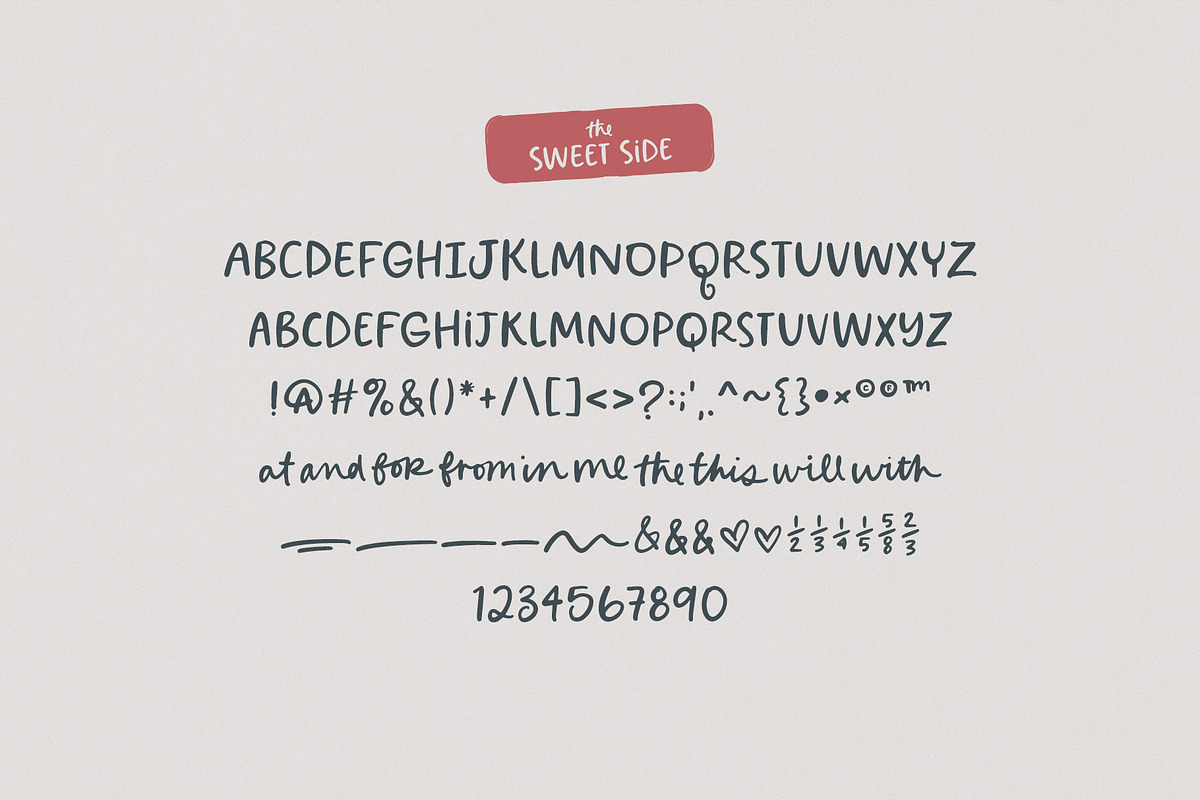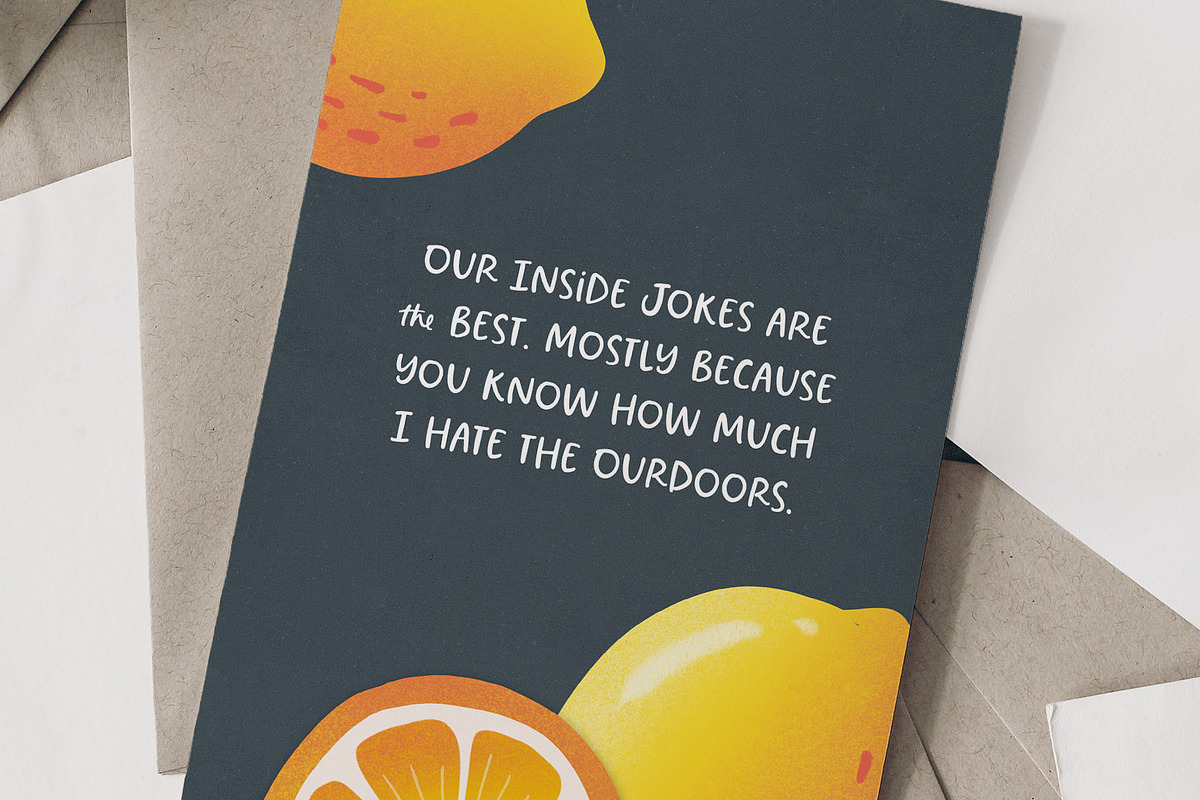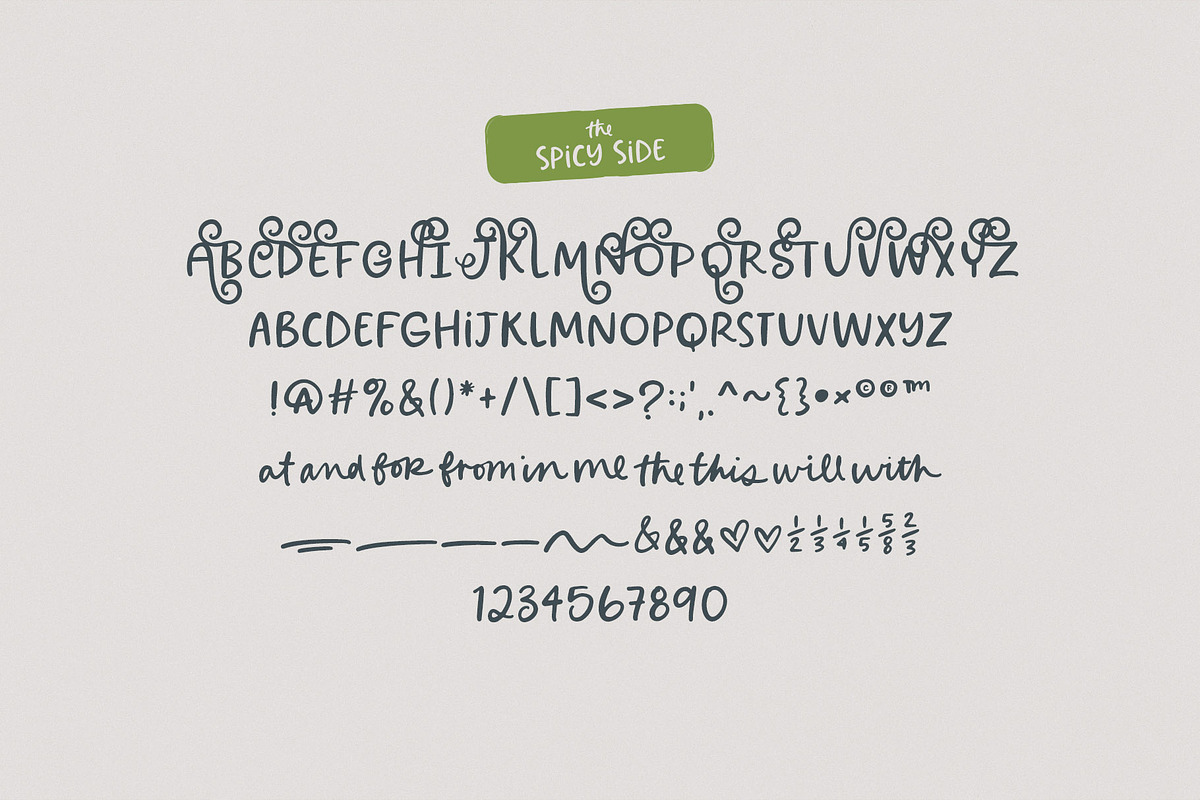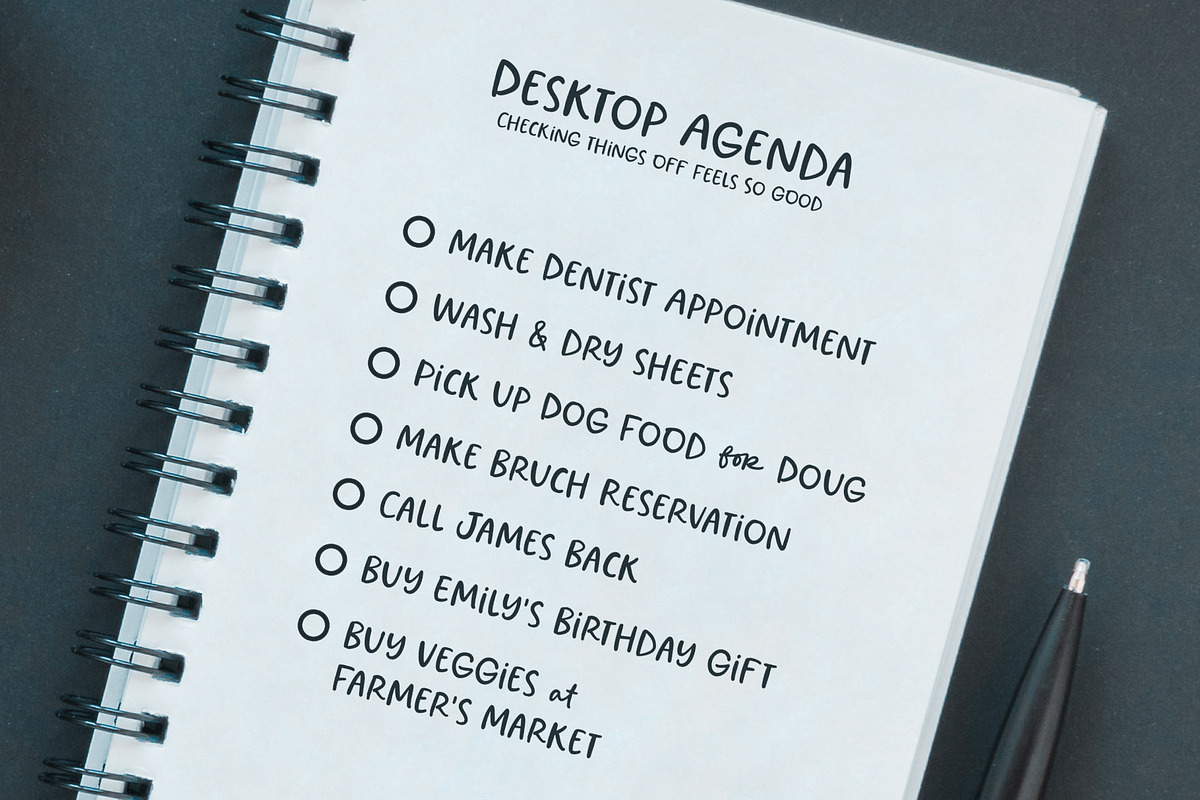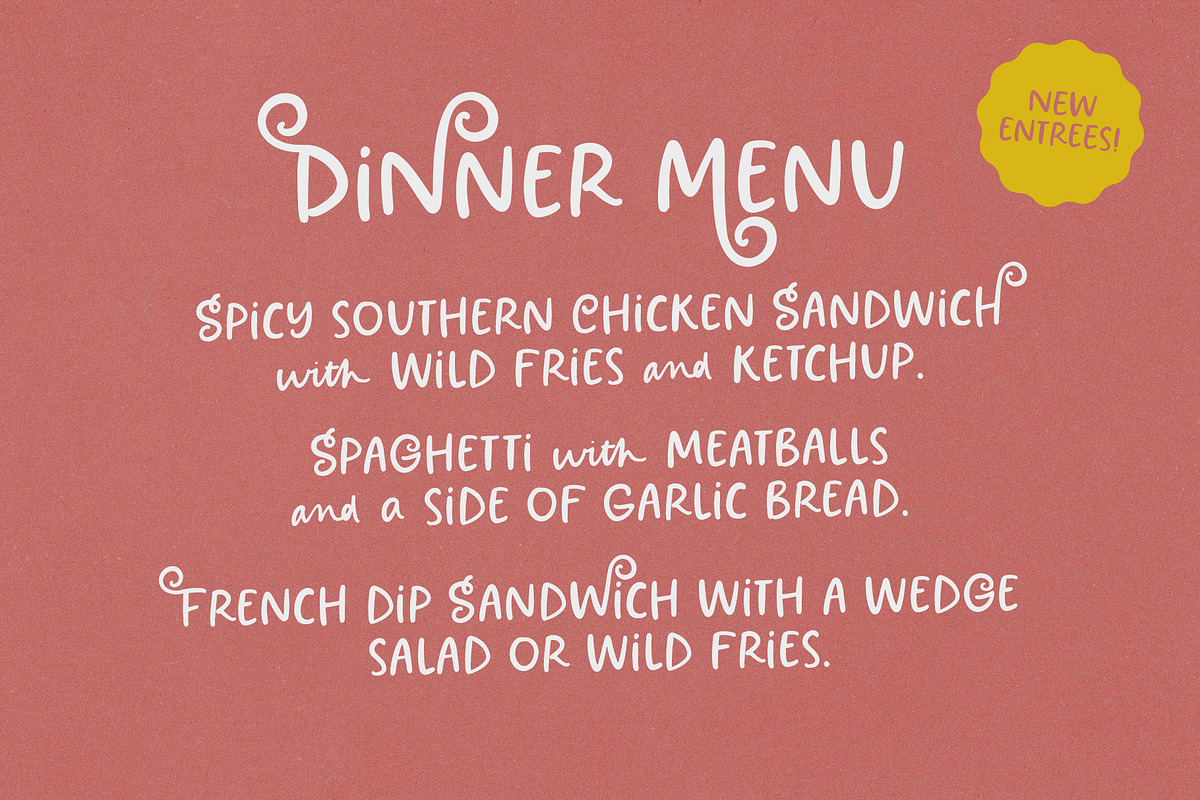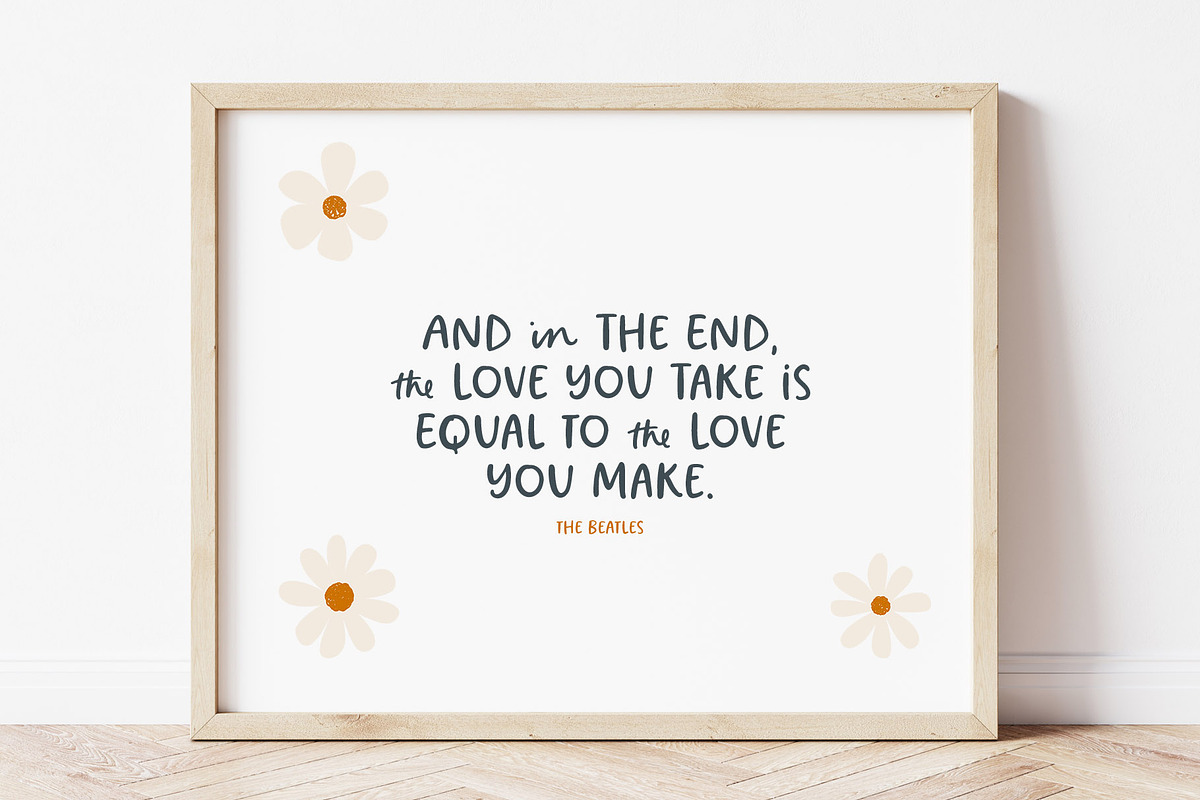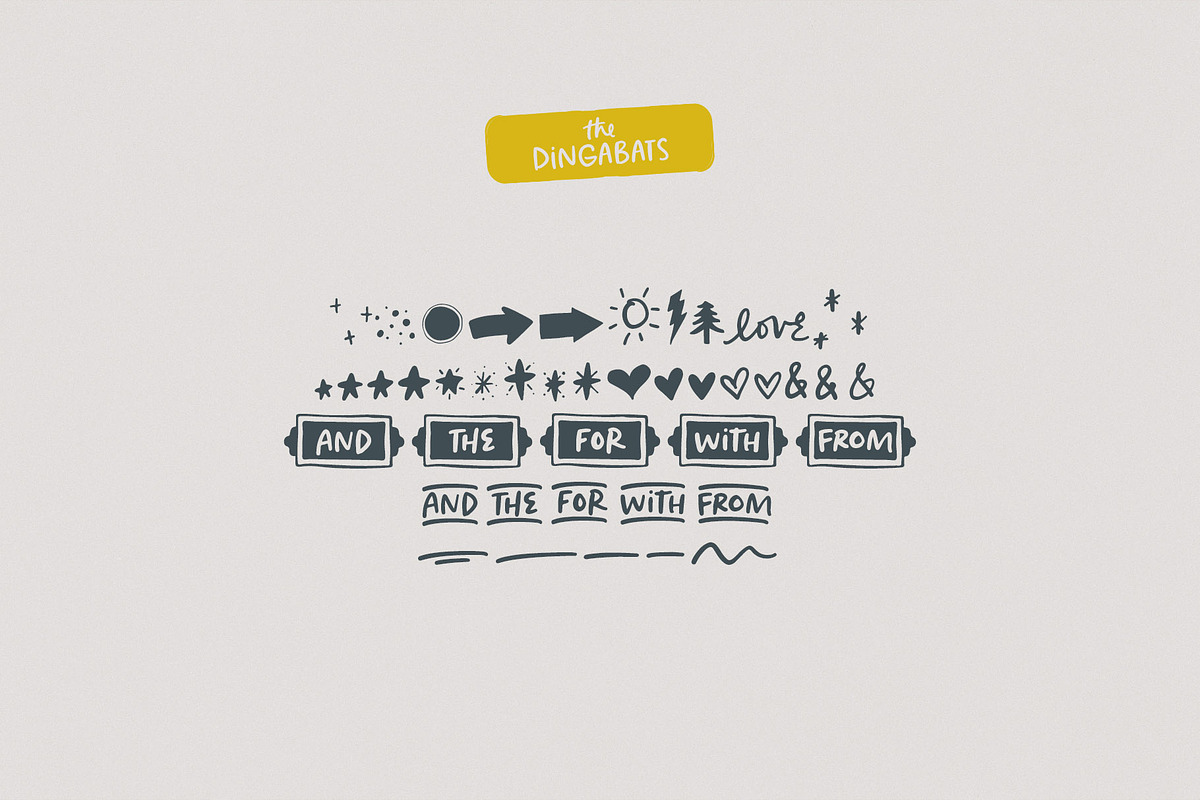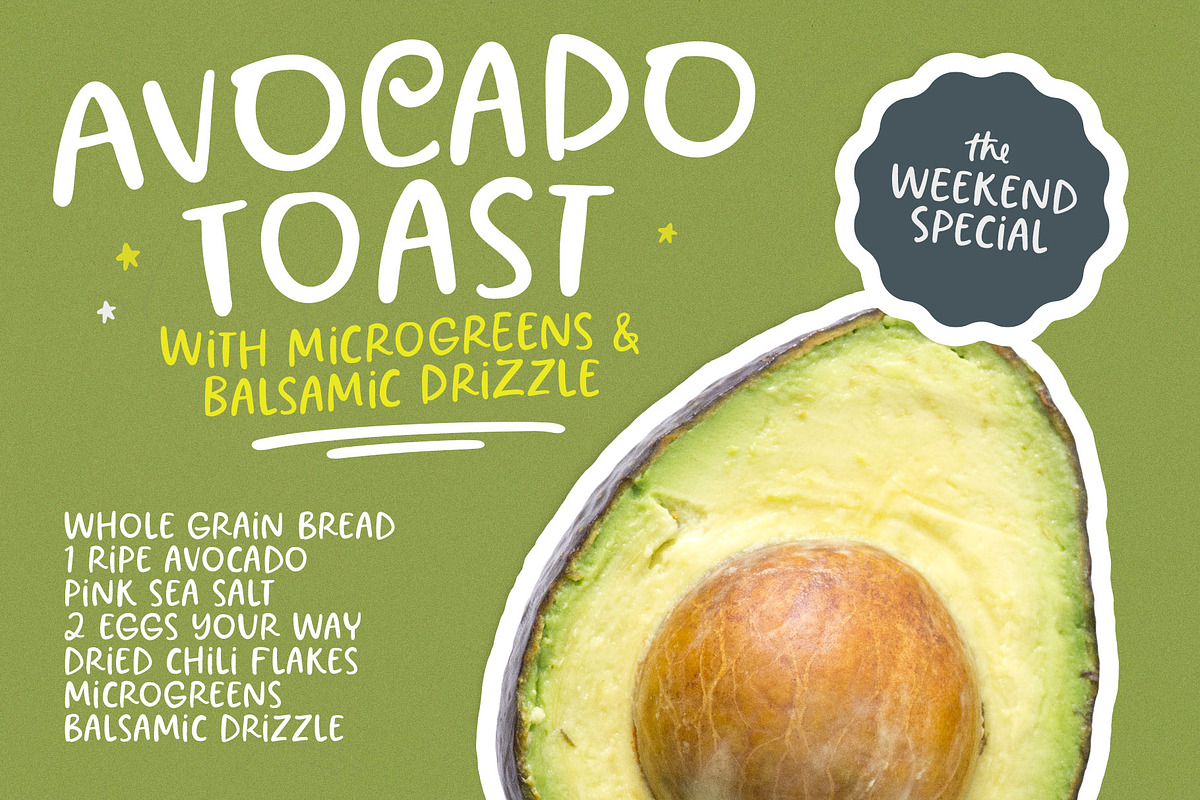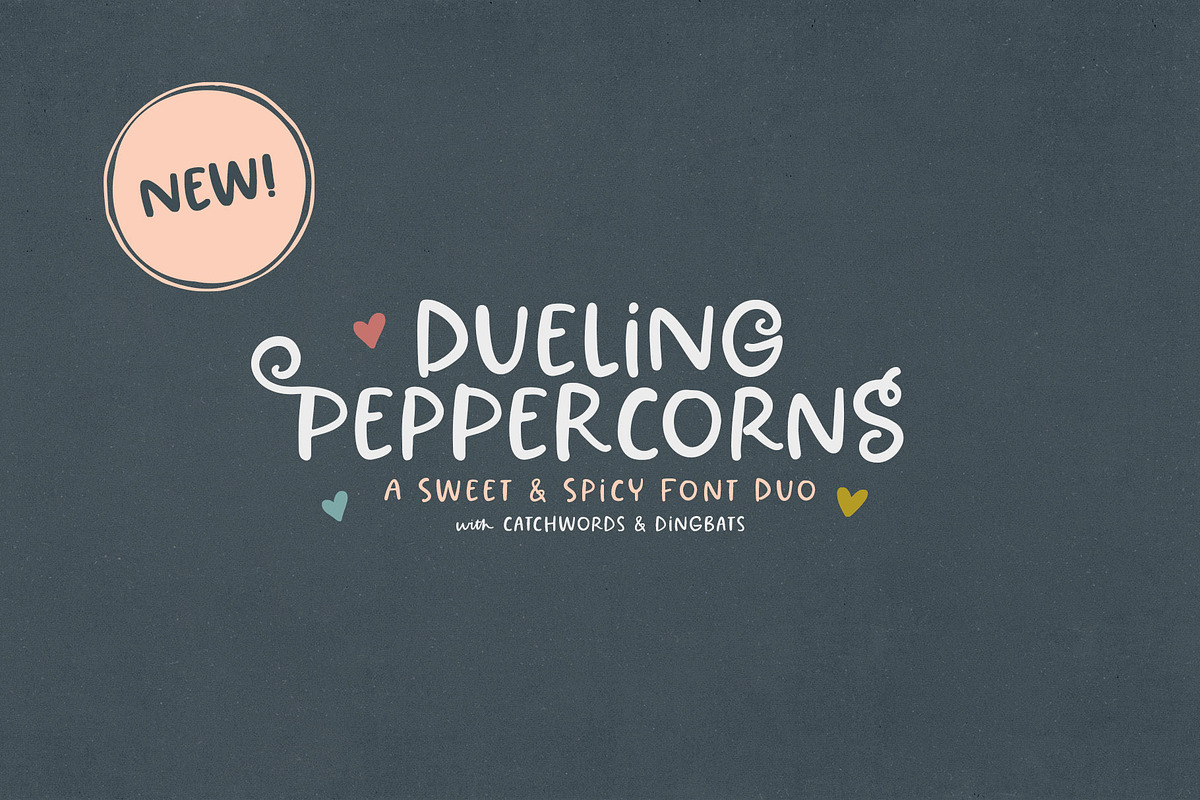
Dueling Peppercorns + Dingbats
Dueling Peppercorns is ready for some love! This dual purpose typeface is both sweet & spicy! Use the “sweet side” (with a clean character set), or the “spicy Side” (with curly uppercase letters) to spice up your projects. Dueling Peppercorns looks so cute on notebooks, journals, books, labels, stickers, quotes and so much more! 😍